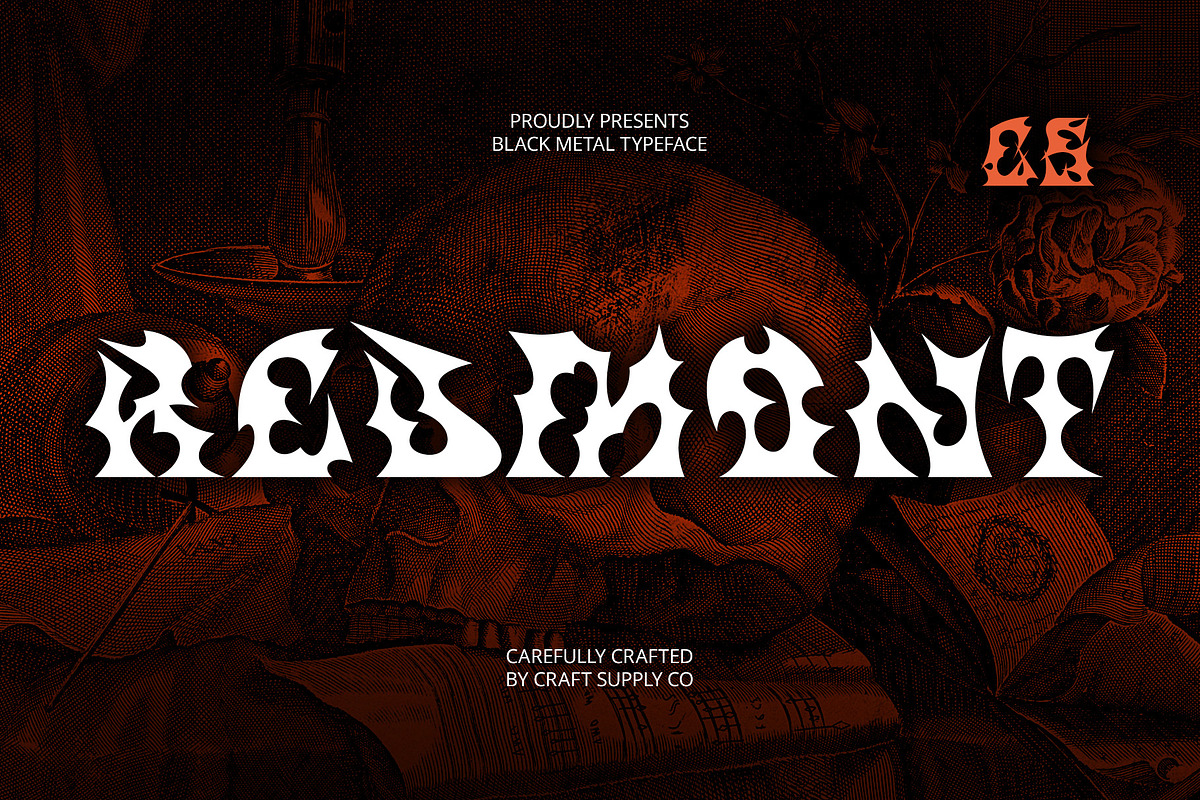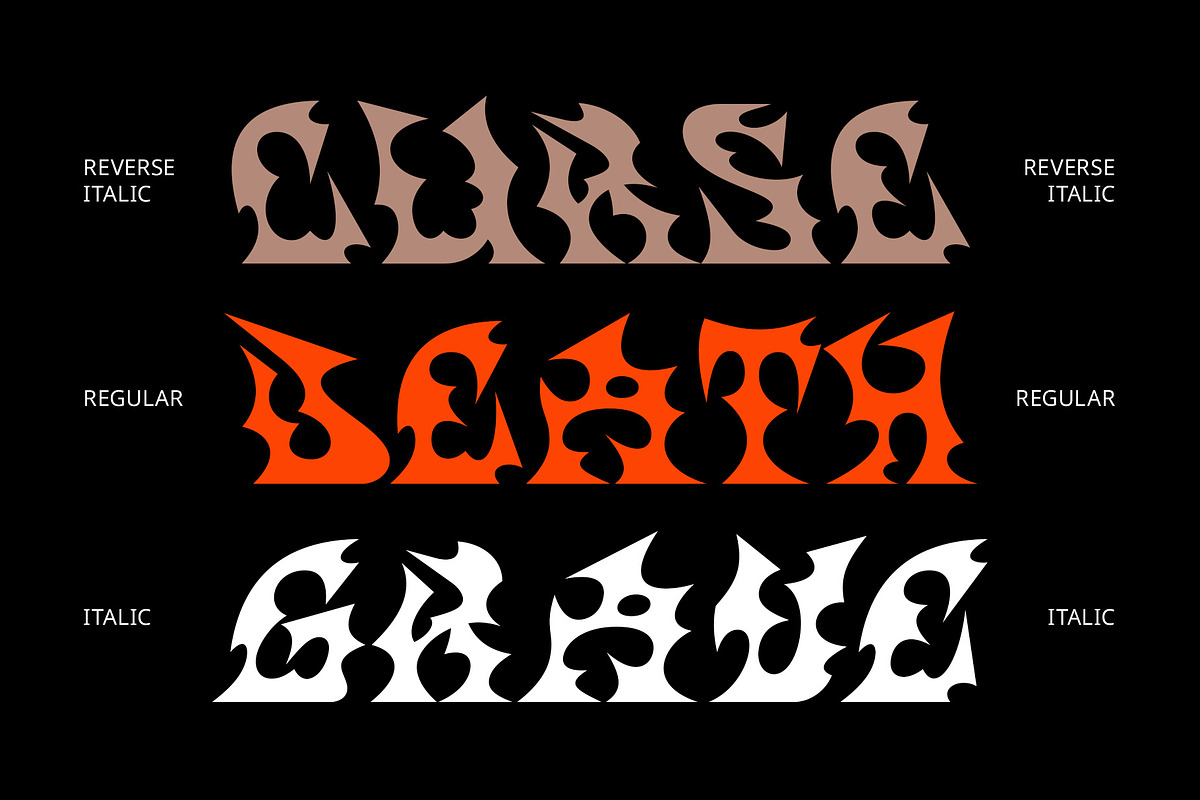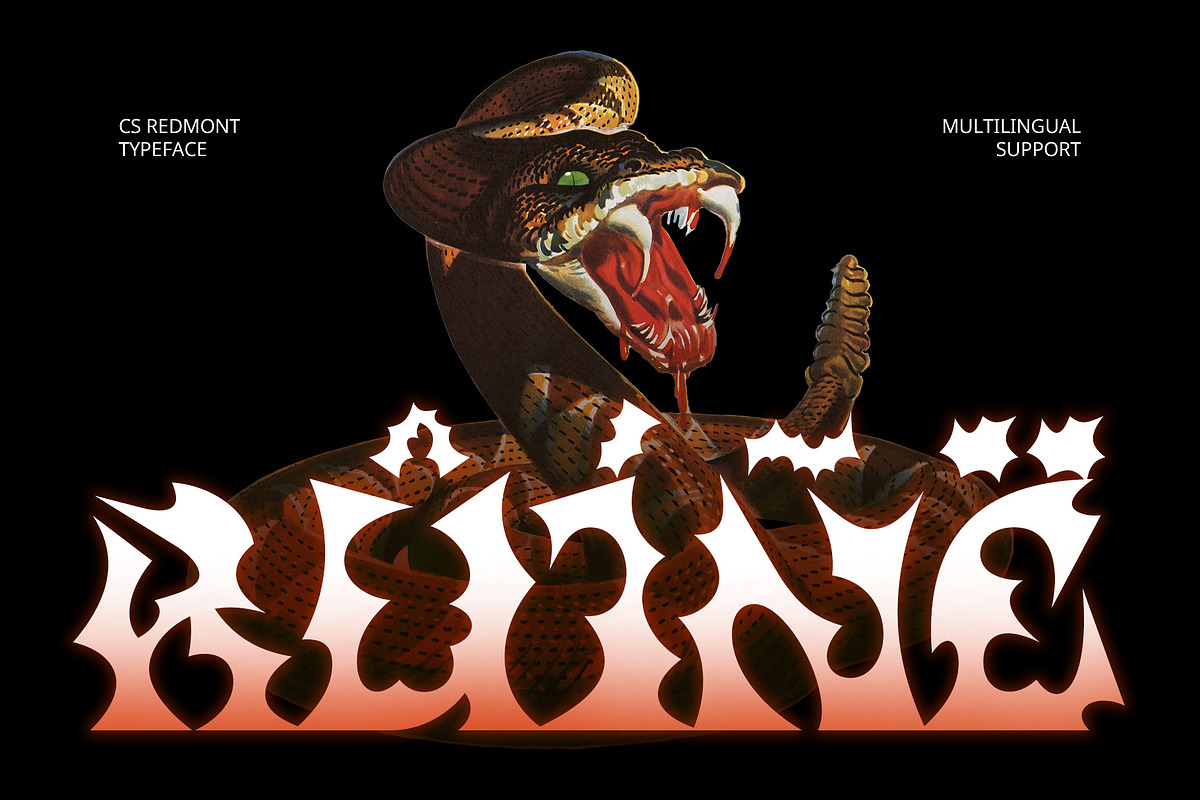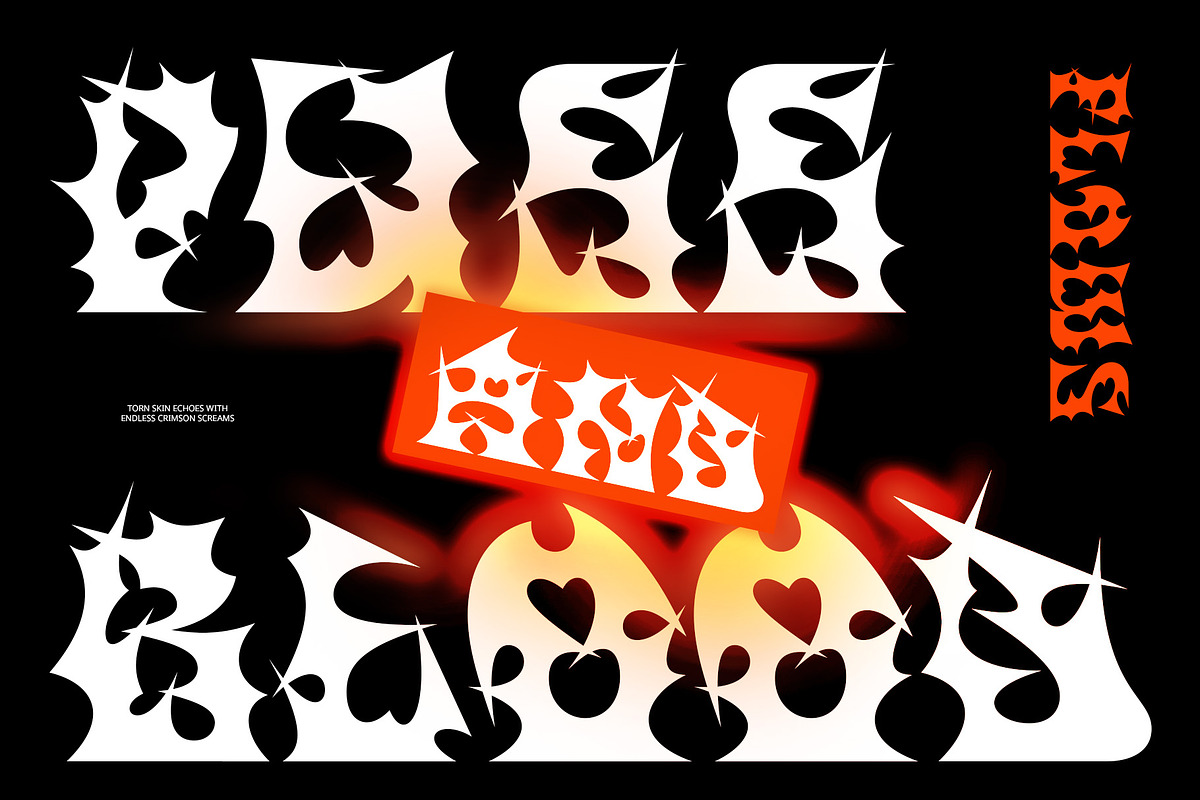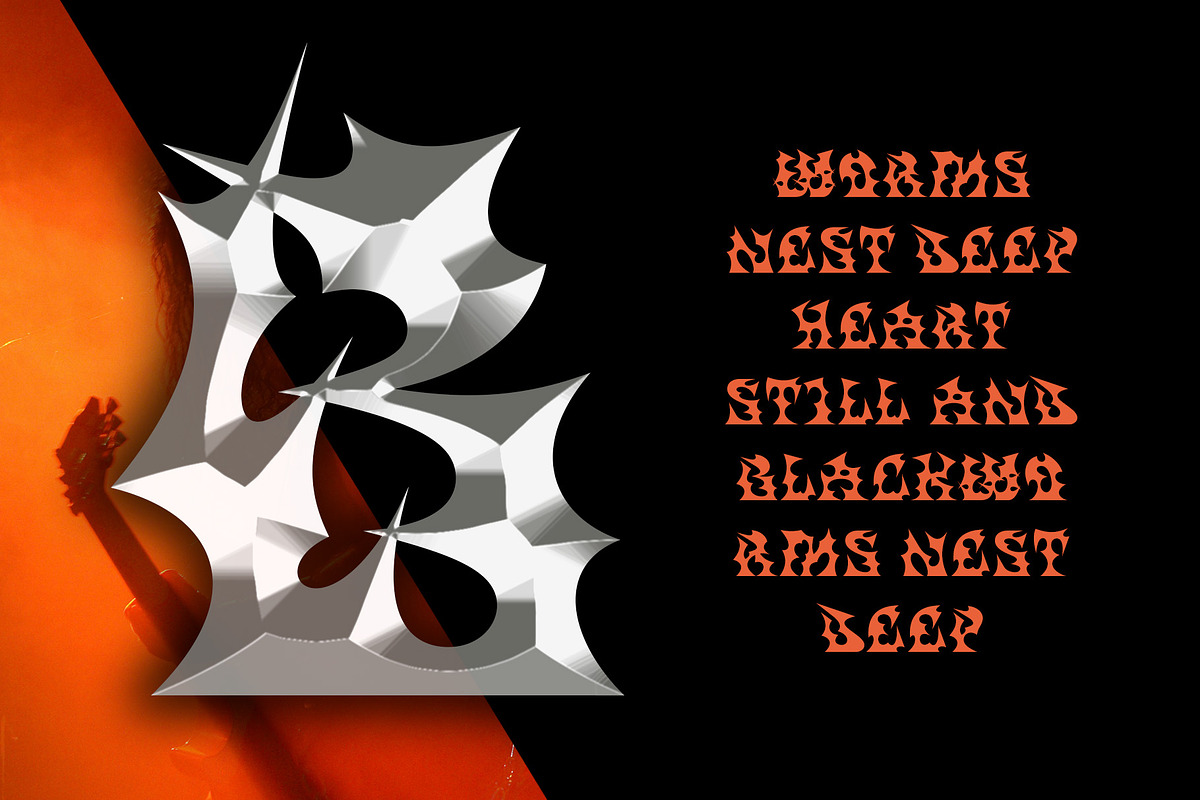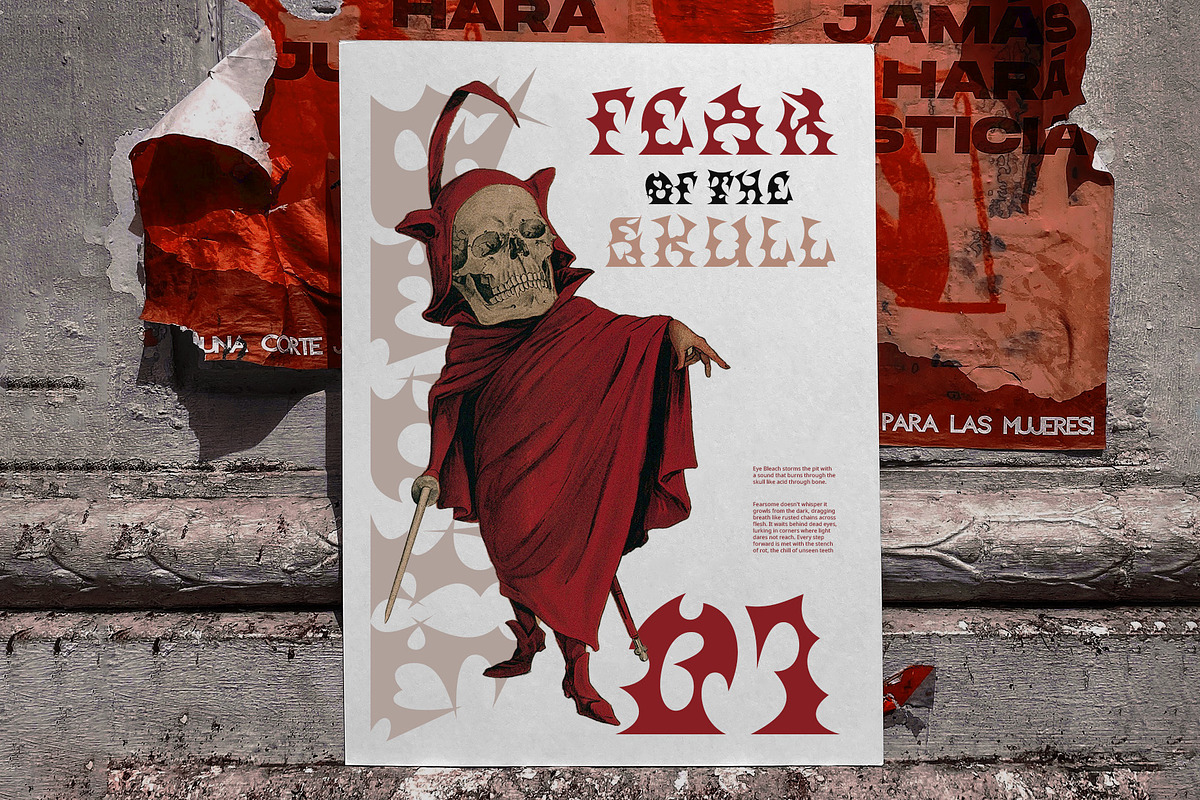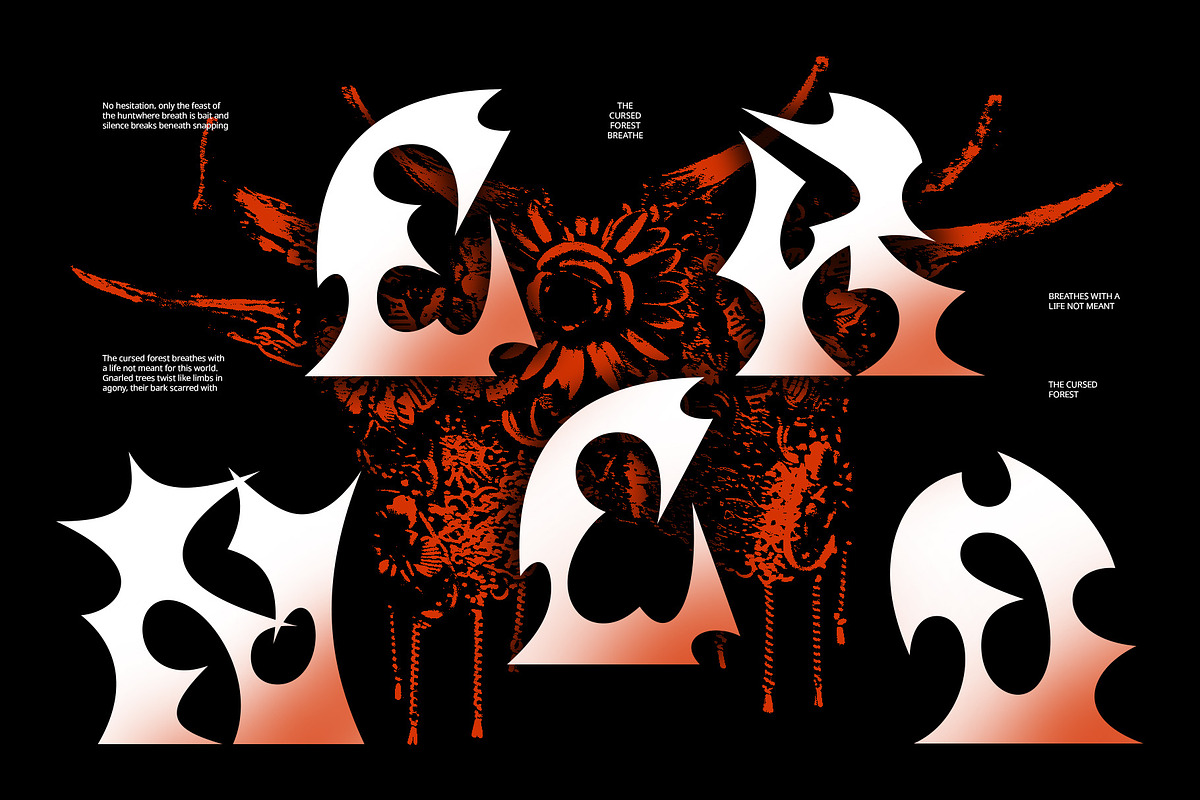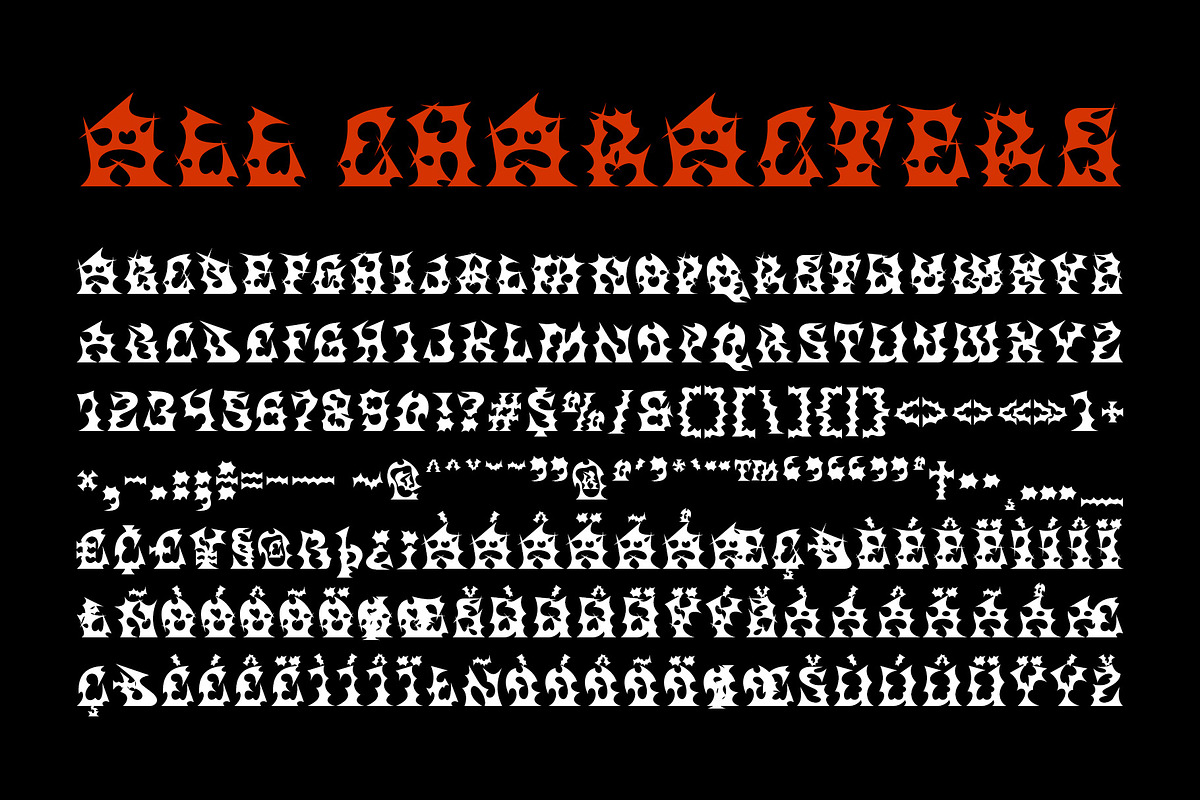
CS Redmont – Black Metal Font
CS Redmont – Black Metal Font: Bold, Distorted, and Chaotic Typography
Sharp and Complex Black Metal Aesthetics CS Redmont – Black Metal Font captures the raw intensity of black metal with its sharp, distorted, and intricate letterforms. The complex shapes evoke a sense of chaos and extreme energy, embodying the essence of rebellion and darkness that defines the genre. This font is designed to stand out with its bold presence.
Designed for Extreme Energy and Visual Chaos CS Redmont Font is a display font where each character is crafted to reflect the chaotic nature of black metal, with jagged edges and warped forms that create an intense visual impact. The design is wild and unpredictable, making it ideal for conveying the raw power of metal music, underground festivals, or anything that demands a dramatic, intense aesthetic.
Perfect for Metal, Horror, and Underground Branding Its bold and unique style ensures that your branding, album covers, and promotional materials capture the dark, rebellious spirit of the black metal scene. Stand out with a font that speaks to the unconventional and edgy.
Unique and Unconventional Visual Appeal CS Redmont Font is not just a typeface; it’s an attitude. Its complex and distorted forms make it perfect for those looking to make a statement with their designs. Ideal for anything from music posters to branding for wild and underground events.